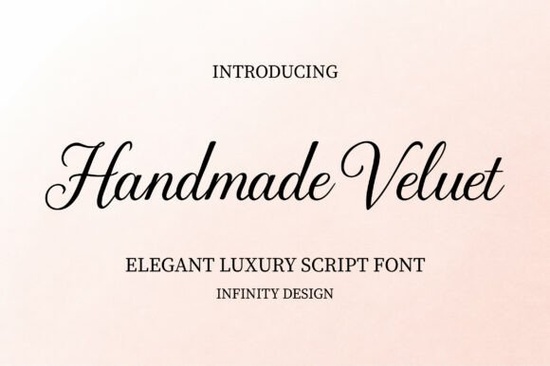
Looking for a script font that feels both luxurious and personal? Handmade Velvet Font is a smooth, handwritten-style typeface designed for projects where elegance matters. Whether you're creating wedding invitations, boutique branding, or feminine social media graphics, this font brings a refined yet approachable feel to your work.
What Makes Handmade Velvet Different from Other Script Fonts?
Most script fonts fall into two camps: overly formal calligraphy or casual handwriting. Handmade Velvet sits in between. Its strokes are fluid and natural, but the letterforms carry a polished, upscale quality. You won't get the stiffness of traditional calligraphy or the looseness of quick hand-lettering.
The font includes smooth curves and consistent flow between characters, which means less time adjusting kerning and spacing. For designers who work on tight deadlines, that's a real practical advantage.
Where Does This Font Work Best?
Based on its style and structure, Handmade Velvet fits naturally into several types of projects:
- Wedding invitations and stationery The elegant script style pairs well with floral elements and soft color palettes.
- Logo design for boutiques and beauty brands It communicates sophistication without feeling cold or corporate.
- Social media graphics Instagram quotes, Pinterest pins, and story templates benefit from a handwritten touch.
- Print-on-demand products Mugs, tote bags, and apparel with feminine or luxury-themed designs.
- Greeting cards and art prints Works well for both digital and physical products.
How Does It Compare to Similar Script Fonts?
Each of these fonts serves a slightly different purpose. Handmade Velvet is the one to reach for when you need understated luxury elegant but not overdone.
Who Should Use This Font?
Handmade Velvet is a solid pick for:
- Small business owners building brand identities in fashion, beauty, or lifestyle niches.
- Wedding stationery designers who want a clean, romantic script for invitations and menus.
- Print-on-demand sellers creating products with feminine or upscale themes.
- DIY crafters working on personal projects like scrapbooking or home décor.
- Graphic designers looking for a versatile script font for client work.
Tips for Getting the Most Out of Script Fonts
Here are a few practical suggestions when working with handwritten-style fonts like this one:
- Pair it with a clean sans-serif Script fonts look best when balanced with a simple body font. Think Montserrat, Lato, or Open Sans alongside your script heading.
- Watch your spacing Even well-designed fonts may need letter-spacing adjustments in headlines to keep text readable.
- Use it selectively A full paragraph in script is hard to read. Reserve it for headings, names, and short phrases.
- Test at different sizes What looks beautiful at 72pt might lose detail at 14pt. Always check readability at the size you'll actually use.
- Consider your color palette Muted tones, metallics, and pastels complement the luxury feel of velvet-style scripts particularly well.
Next step: Preview the font with your own text before committing. Type out a few words from your actual project a business name, a tagline, or a headline and see how it feels in context. If Handmade Velvet matches the tone you're going for, it's a reliable choice for projects that need a touch of elegance without the formality of traditional calligraphy.